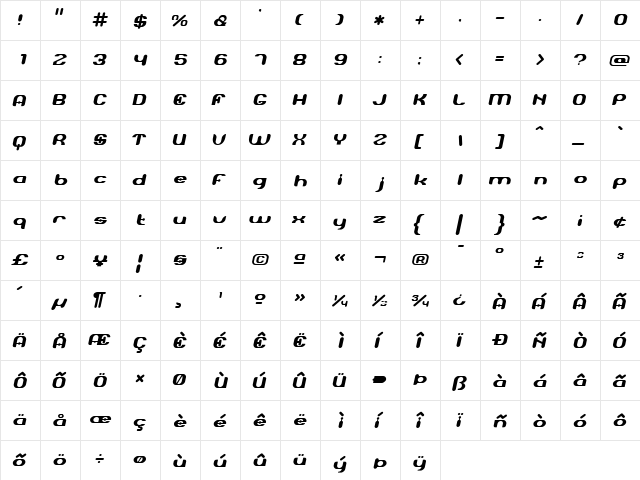
Terminus Medium Italic
Design Context for Terminus Typeface
Terminus is a composed and adaptable typeface that performs quietly and consistently across a wide range of design contexts. Its italic angle brings a sense of urgency and motion to the letterforms.
Pro Tip: Use Terminus for emphasis, pull quotes, and subheadings where its slanted energy can add rhythm to the layout.